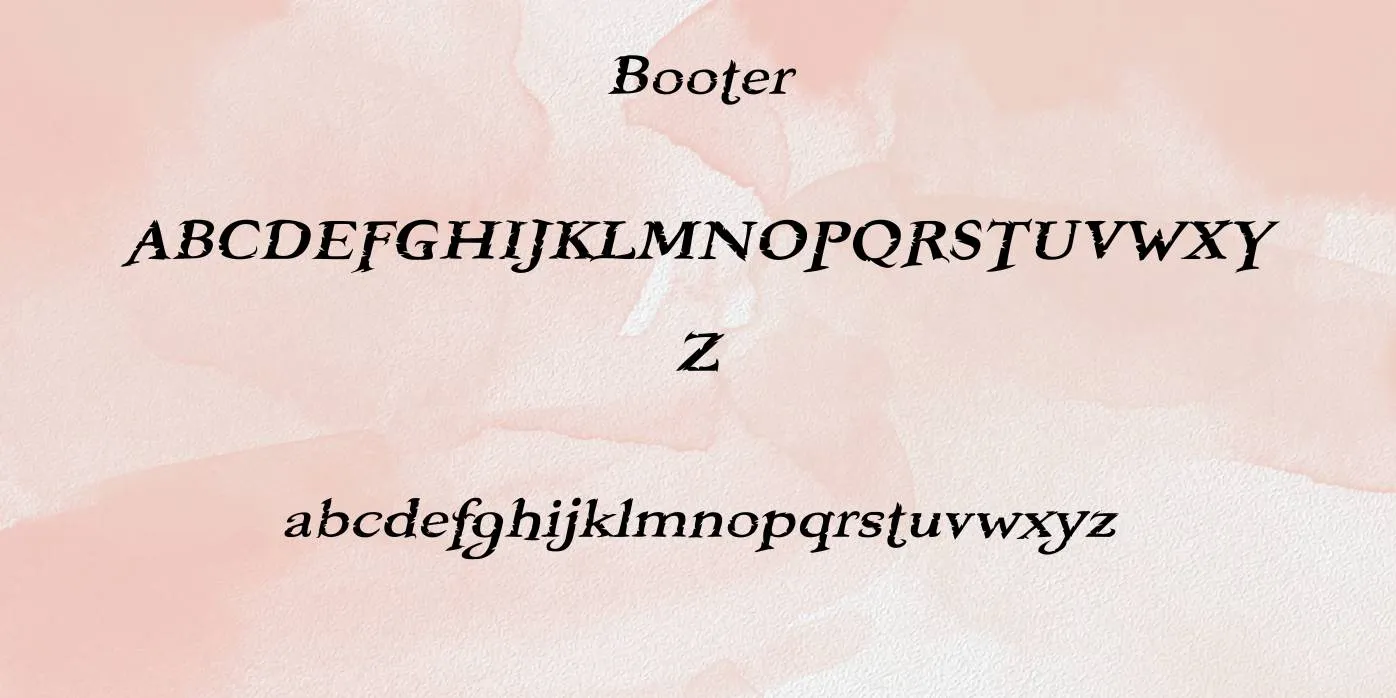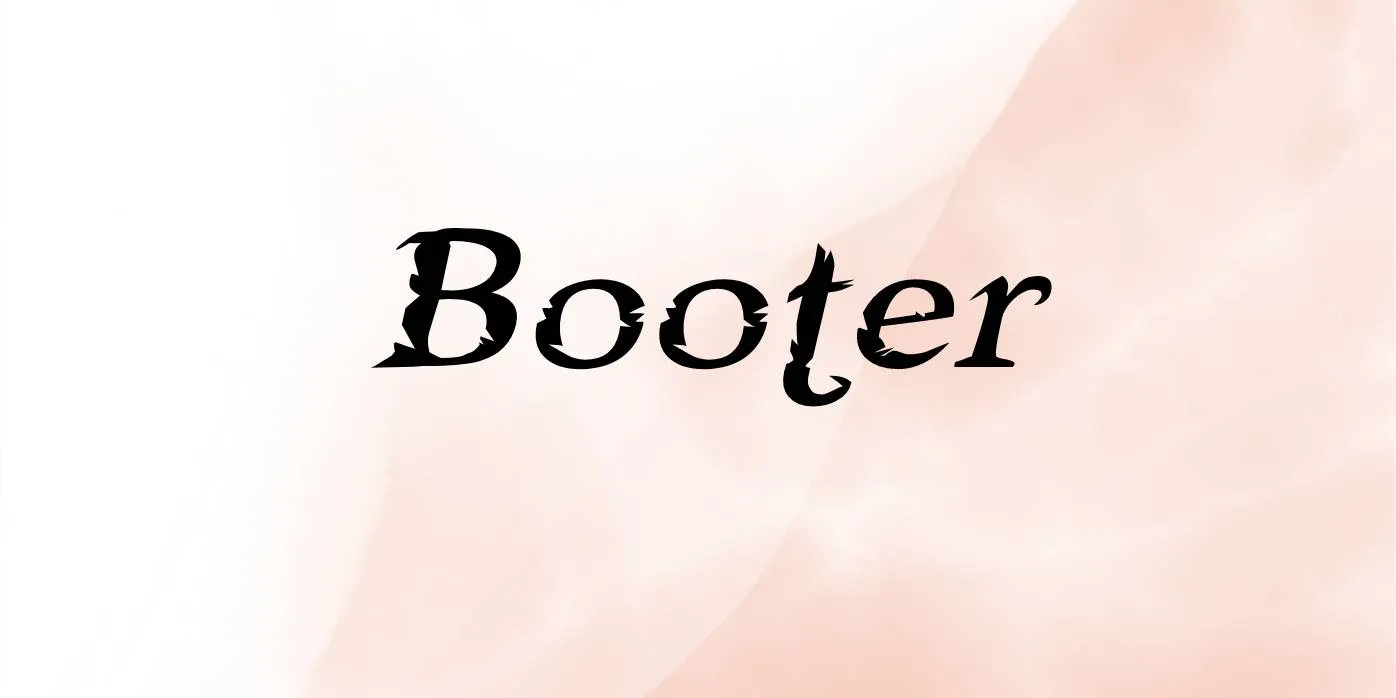
Booter Font
We discuss detailed information about Booter font. This stunning font was designed by Outlines by Graham Meade and Apostrophic Labs. This is a very nice and attractive Gothic font. It has many features which can be used to make many different projects.
It contains 278 characters, 246 glyphs, and 1000 units per Em. Unicode supported 2.0 and BMP only. The weight and width of the font are medium (normal). This font also supports an online generator tool that can be used to convert simple text into a stylish look without downloading the font.
Usage This stunning font can be used to design many different projects. It has many features characters, symbols, numbers, small letters, capital letters, and special characters. You can make attractive banners, flyers, and posters by using this font. You can use it to design book covers, magazine covers, and for making attractive logos.
This stunning font is designed by Apostrophic Labs. It is a very amazing font and has a very unique style. What are the benefits of Booter Font? It is a very professional font and can be used to design many projects you can make attractive banners, posters, and flyers can be made by using this font.